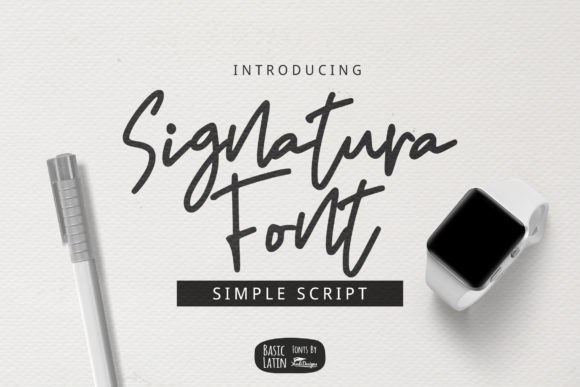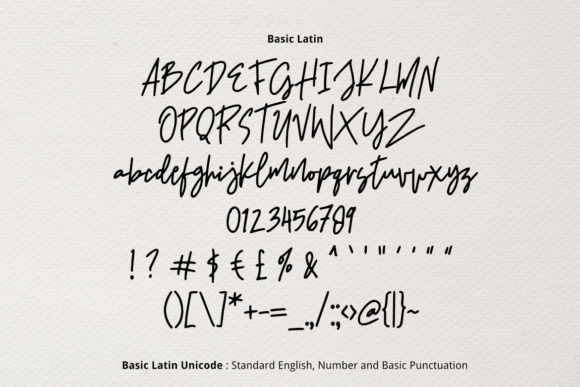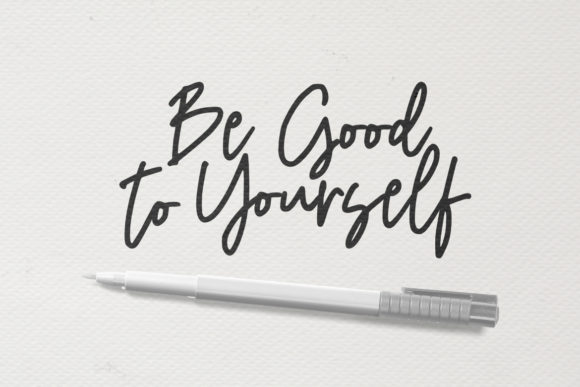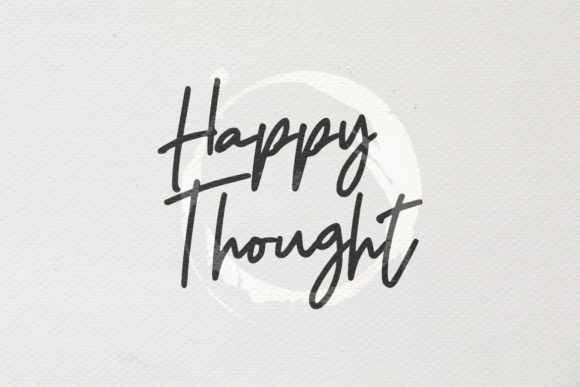
Signatura Script Font
About Signatura Script Font
Signatura Script is a beautiful and asymmetrical handwritten font. It is the best choice for creating eye catching logos, branding and quotes. Every letter has a unique and beautiful touch, which will make your design come alive!